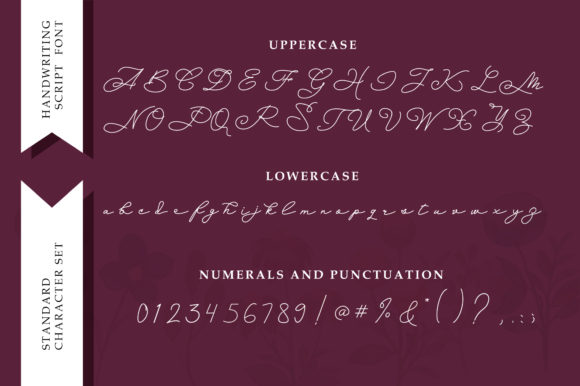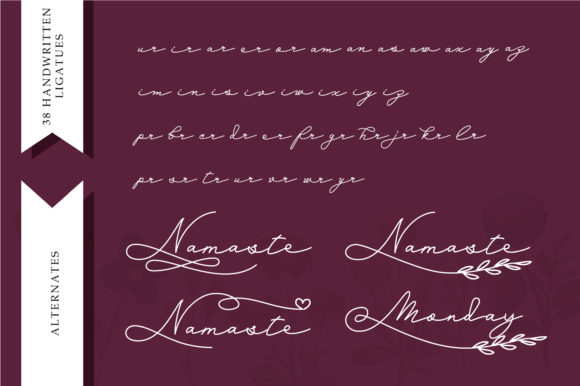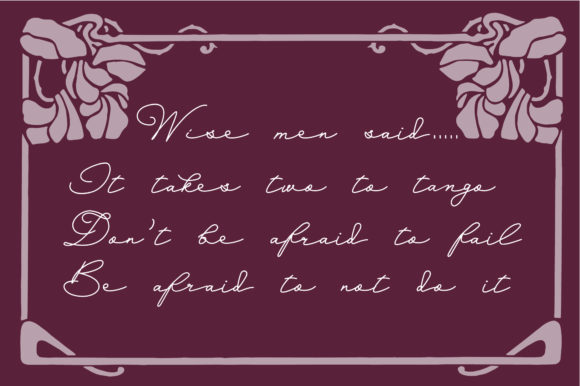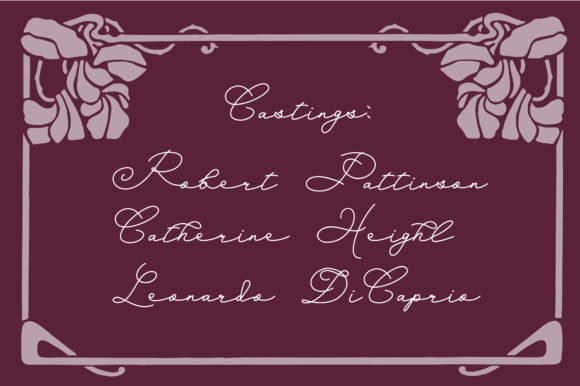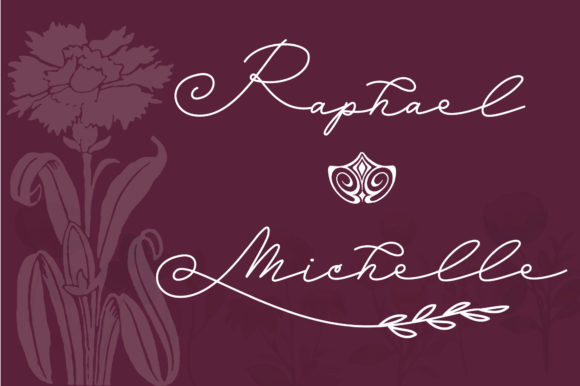
Discover the Charm of Budapest Girl Font: A Delicate Handwriting Typeface
Are you tired of using the same old fonts for your design projects? Look no further! Introducing Budapest Girl Font, a simple yet stunning handwriting typeface that is sure to capture your heart. With its cool ligature features and delicate charm, this font is set to become your go-to choice for all your design needs.
What is Budapest Girl Font?
Budapest Girl Font is a beautiful, hand-crafted typeface designed to add a touch of elegance and sophistication to your designs. This font is perfect for designers, crafters, and anyone looking for a unique and eye-catching font to make their project stand out. Its simplicity and delicate nature make it versatile, allowing you to use it for a wide range of projects, from wedding invitations and branding materials to social media graphics and more.
Key Features of Budapest Girl Font
- Simple and Delicate Design: Budapest Girl Font boasts a simple, handwriting-style design that exudes elegance and sophistication.
- Cool Ligature Features: This font comes with cool ligature features that allow you to create stunning text combinations and add a touch of personality to your designs.
- Handwriting Typeface: The font’s handwriting style gives it a personal and human touch, making it perfect for designs that require a more personal approach.
- Versatile: Budapest Girl Font is versatile and can be used for a wide range of projects, from digital designs to print materials.
Why Choose Budapest Girl Font?
There are many reasons why Budapest Girl Font should be your top choice for your next design project. Here are a few:
- Unique and Eye-Catching: This font is sure to grab attention with its unique and eye-catching design.
- Elegant and Sophisticated: Budapest Girl Font adds a touch of elegance and sophistication to any design, making it perfect for high-end brands and luxury products.
- Easy to Read: Despite its delicate nature, this font is easy to read, making it perfect for body text and longer paragraphs.
- Great for Branding: The font’s unique design and ligature features make it perfect for branding materials, such as logos, business cards, and letterheads.
How to Use Budapest Girl Font
- Use it for Headings and Titles: This font is perfect for headings and titles, where you want to make a statement and grab attention.
- Add Ligatures: Take advantage of the font’s cool ligature features to add a touch of personality to your designs.
Who is Budapest Girl Font for?
Budapest Girl Font is perfect for:
- Designers: Graphic designers, UI/UX designers, and anyone looking for a unique and eye-catching font for their design projects.
- Crafters: Crafters, scrapbookers, and DIY enthusiasts who want to add a personal touch to their projects.
- Small Business Owners: Small business owners and entrepreneurs looking for a font that will help them stand out from the competition.
In conclusion, Budapest Girl Font is a stunning handwriting typeface that is sure to capture your heart. With its delicate design, cool ligature features, and versatility, this font is perfect for designers, crafters, and anyone looking for a unique and eye-catching font for their project. So why wait? Give Budapest Girl Font a try today and discover the charm of this beautiful font for yourself!